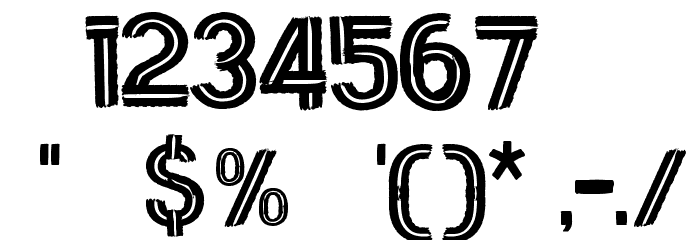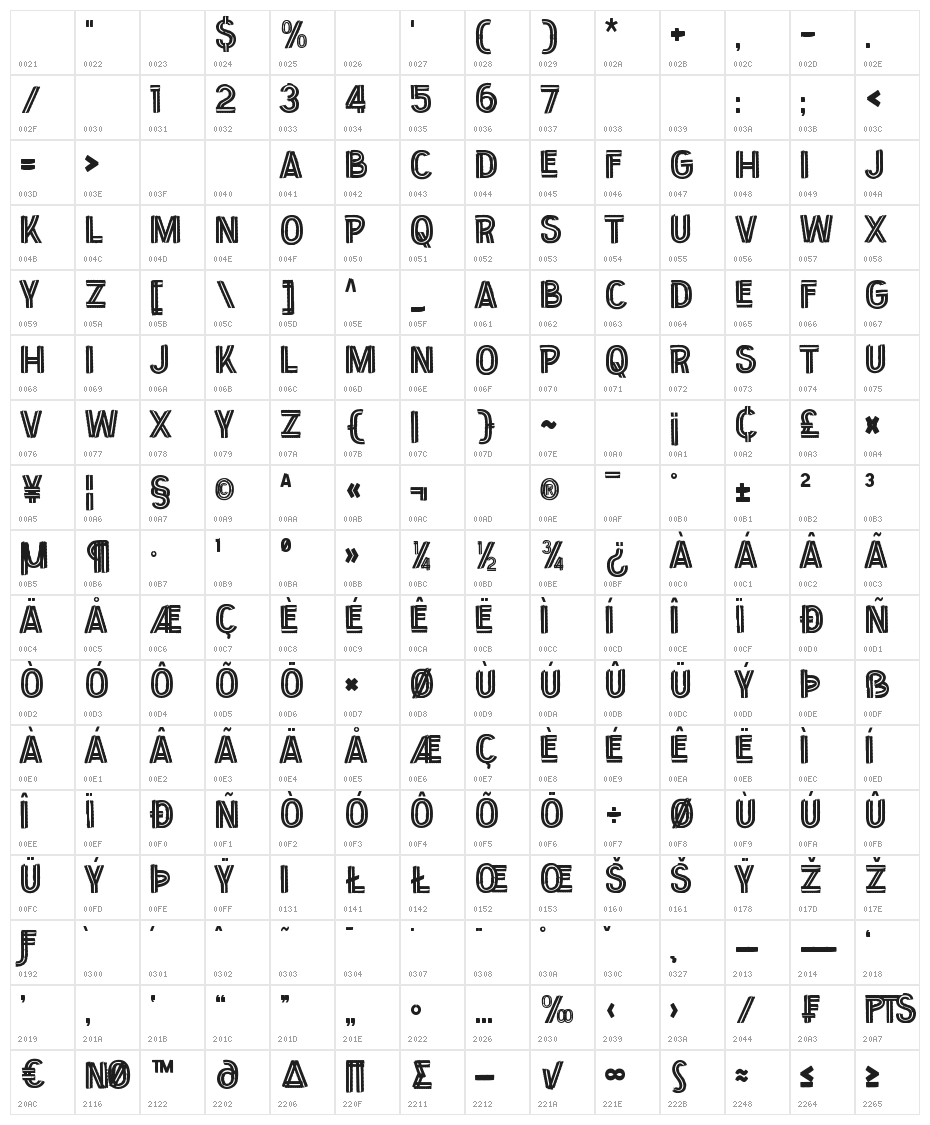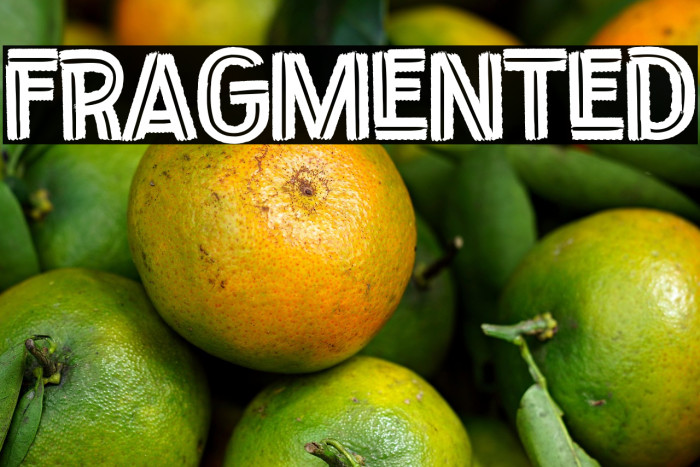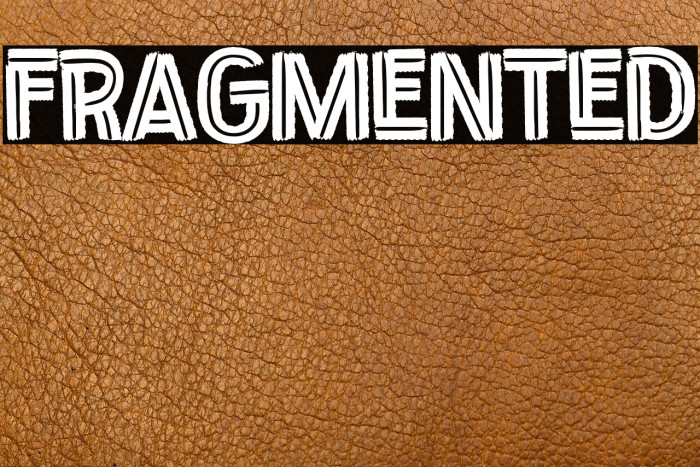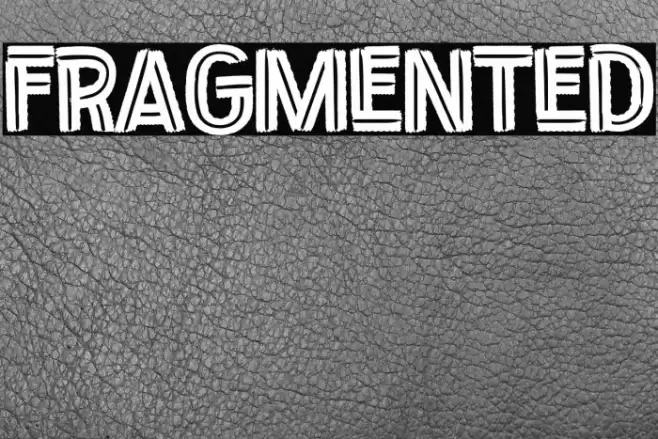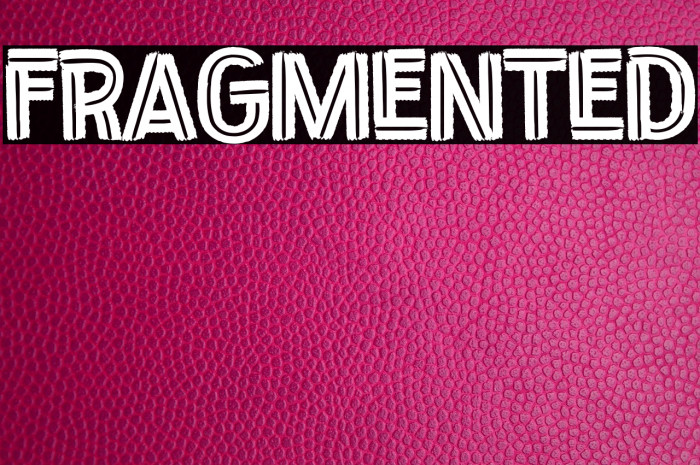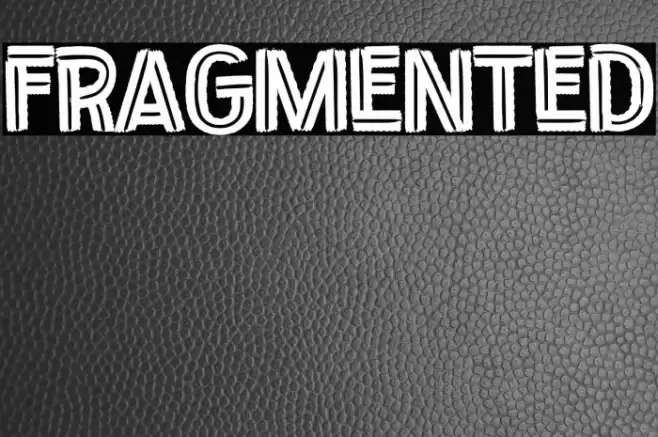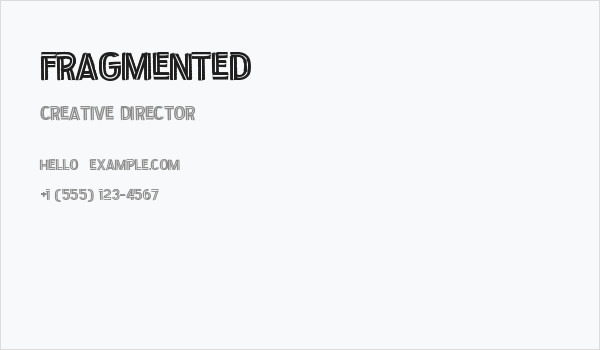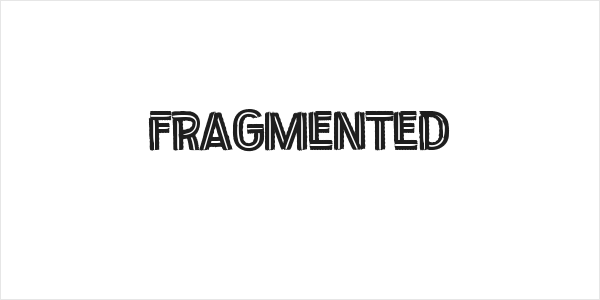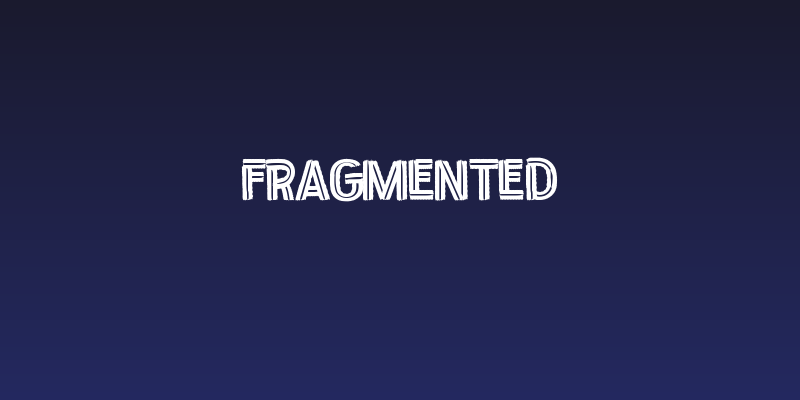
Fragmented Font
Fragmented Description
This font features a bold and dynamic design with a fragmented, textured appearance. The letters are uppercase and have a three-dimensional effect, giving them a sense of depth and movement. The strokes are thick and uneven, creating a rugged and edgy look. This style is eye-catching and unique, making it suitable for projects that require a strong visual impact. The numbers and special characters follow the same fragmented style, maintaining consistency throughout the font. The overall aesthetic is modern and unconventional, perfect for creative and artistic applications.